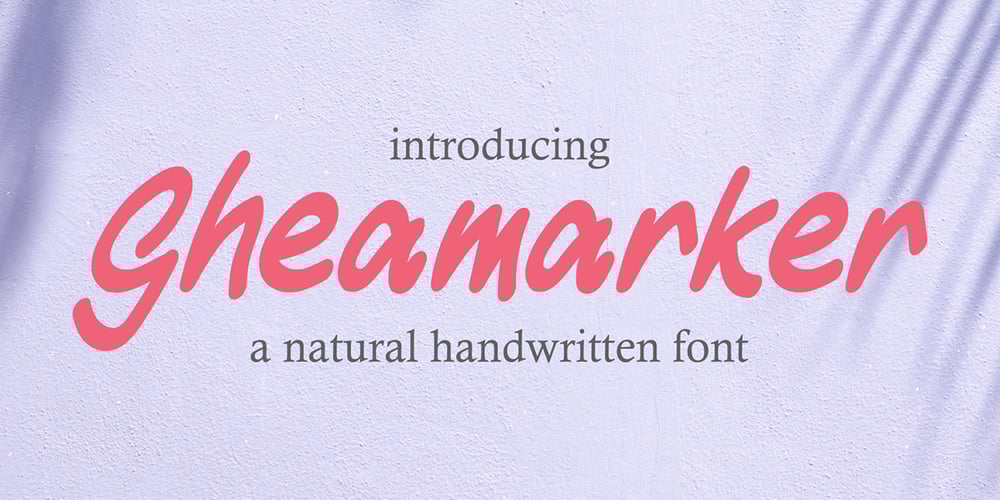
Gheamarker Font Family was designed by Sipanji and published by Sipanji21. Gheamarker contains 1 styles and family package options. Gheamarker is a Natural Handwritten font with a relaxed theme, featuring a lovely style. No matter the topic, this font will be an incredibly asset to your fonts’ library, as it has the potential to elevate any creation.